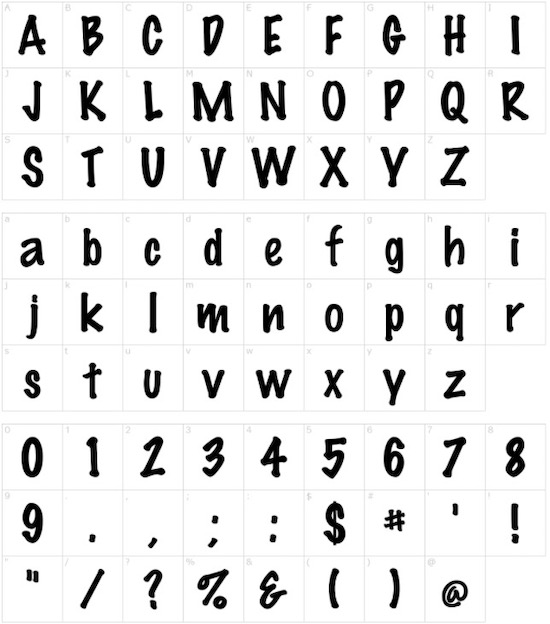
Marker Felt font is a handwritten script typeface with an elegant and modern style. It’s designed and shared by Dieter Steffmann. And this font is very perfect for any design project that needs a charming handwriting look. Marker Felt is completely hand-drawn and consists of ligatures to perfectly make natural handwriting.
It is a playful and cute script typeface that will be perfect for scrapbooking, DIY projects, greeting cards, packaging, posters, websites, kids photography, window art, labels, quotes, branding, photos, and much more.
Marker Felt Script Font
Marker Felt Font